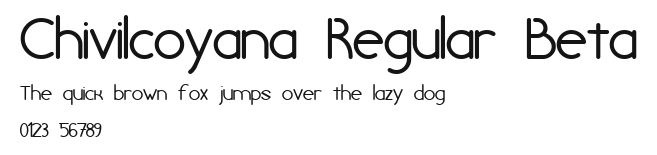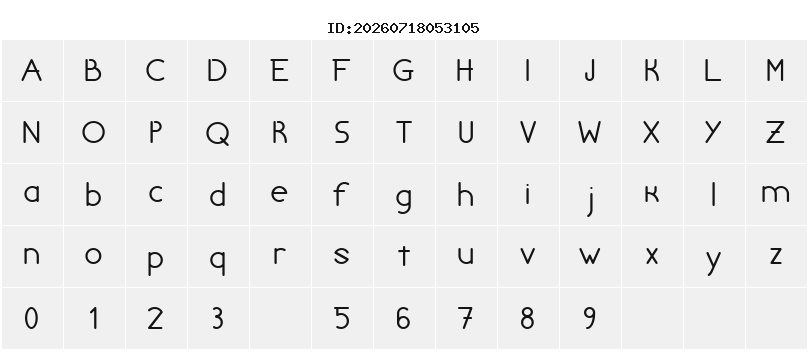
Chivilcoyana Regular Beta Preview
• Font Name: Chivilcoyana Regular Beta
• Full Font Name: Chivilcoyana Regular Beta
• Designer: Juan Ignacio Felice
• Manufacturer: Juan Ignacio Felice
About Chivilcoyana Regular Beta.ttf
Chivilcoyana Regular Beta.ttf is a modern, elegant sans-serif font designed for ultimate readability and visual harmony. Perfect for branding, headlines, web design, and print materials.